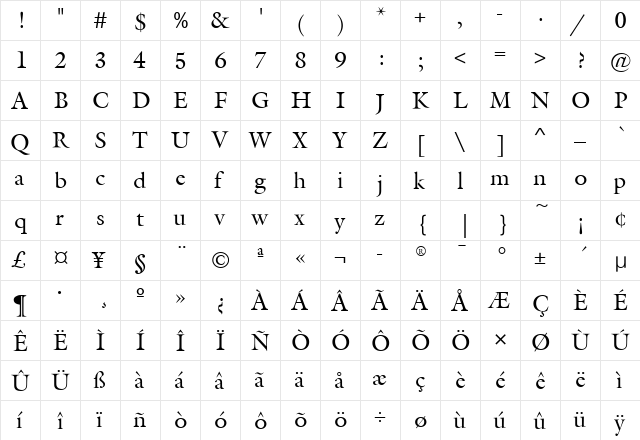
GalliardITC Medium Font Preview
GalliardITC Medium
GalliardITC Medium Font Details
Design Context for GalliardITC Typeface
GalliardITC is a composed and adaptable typeface that performs quietly and consistently across a wide range of design contexts.